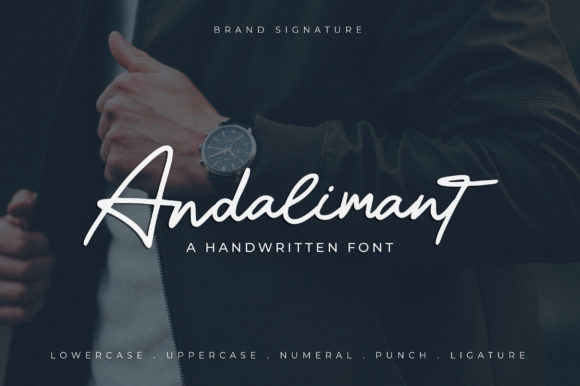
The Elegance of Andalimant: A Designer’s New Best Friend
I still remember the project that led me to discover the beautiful Andalimant font. I was working on a luxury brand’s branding materials, and my client specifically requested a sophisticated, elegant script font that would make their brand stand out. After hours of searching through font libraries, I stumbled upon Andalimant, and it was love at first sight! ✨
Its flowing lines, refined features, and stylish alternates immediately caught my attention. I knew right then and there that Andalimant was the perfect match for my client’s project. In this article, I’ll share my experience with Andalimant, its features, and how to make the most of this stunning font.
An Honest Review of Andalimant
- ✨ Elegant and sophisticated design
- ✅ Extensive range of stylistic alternates and ligatures
- ✅ Support for OpenType features
While Andalimant is an exceptional font, there are a few minor quirks to be aware of: 🤔
- ⚠️ Some characters may not work well in all contexts, requiring manual adjustment
- ⚠️ Limited support for non-English languages
The Story Behind Andalimant
Andalimant was designed by a talented type designer who drew inspiration from traditional calligraphy and elegant typography. The font’s creator aimed to craft a sophisticated, refined script font that would evoke a sense of luxury and elegance. 💫
With Andalimant, the designer sought to create a versatile font that would be suitable for a wide range of applications, from branding and advertising to packaging and editorial design.
| Font Name | Andalimant Font |
| Author | klakonstudio |
Q: What is the best use case for Andalimant?
A: Andalimant is perfect for luxury brands, high-end products, and creative projects that require a sophisticated, elegant look.
Q: Is Andalimant a difficult font to read?
A: No, Andalimant is highly legible, even at small font sizes. Its clear lines and refined features make it easy to read.